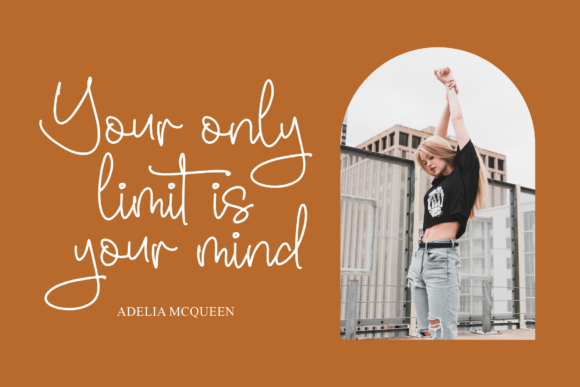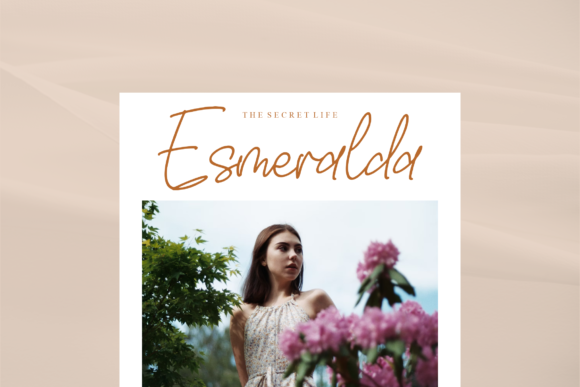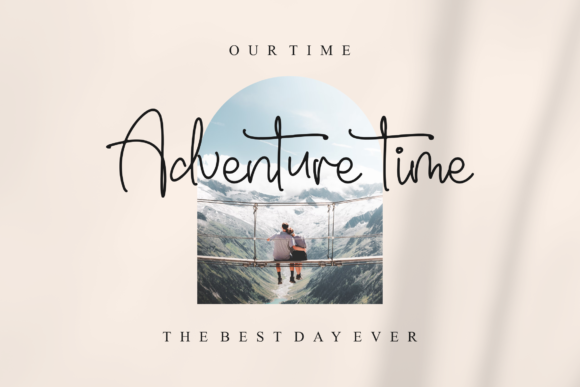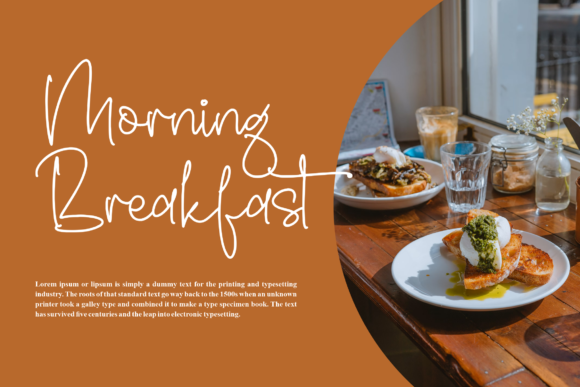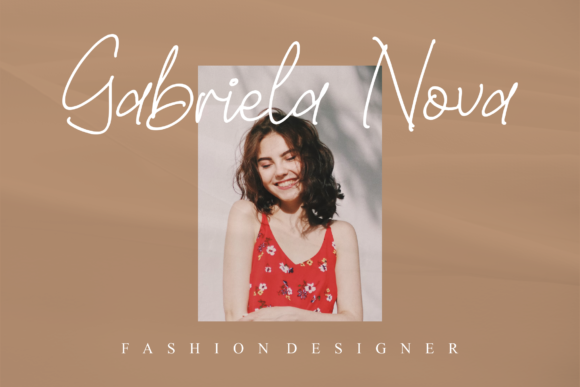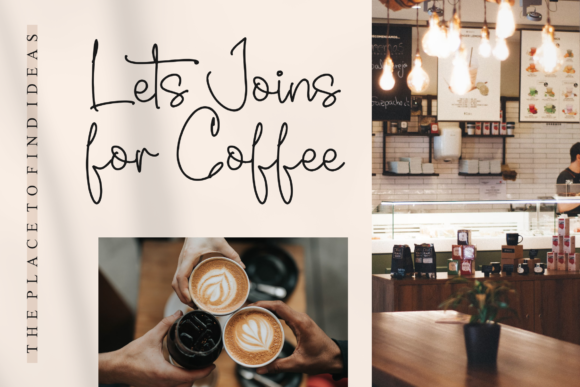
Harisstania Font: Elevate Your Designs with Elegance and Sophistication
In the world of design, typography plays a crucial role in conveying the tone and personality of a brand or product. For designers and crafters seeking to add a touch of elegance and sophistication to their work, the Harisstania font is an excellent choice. This free-flowing script font is specifically designed for packaging products, invitation cards, flyers, mockups, event posters, and any other project that demands high-quality vibes.
The Beauty of Harisstania
Harisstania boasts a beautiful and balanced character that seamlessly fits into a large design pool. Its flowing script lines and curves create a sense of movement and fluidity, making it perfect for designs that require a touch of dynamism. The font’s elegant appearance is sure to captivate your audience and leave a lasting impression.
One of the standout features of Harisstania is its PUA (Private Use Area) encoding. This means that designers can easily access all the glyphs and swashes, allowing for greater flexibility and creativity in their work. With PUA encoding, you can effortlessly navigate the font’s extensive character set and select the perfect elements to enhance your designs.
Harisstania’s versatility is another reason why it’s a favorite among designers and crafters. This font can be used for a wide range of projects, including:
- Packaging products: Add a touch of sophistication to your product labels and packaging with Harisstania’s elegant script.
- Invitation cards: Create beautiful and memorable invitations for weddings, parties, and other special events.
- Flyers: Grab attention with Harisstania’s flowing script and make your flyers stand out from the crowd.
- Mockups: Use Harisstania to add a touch of realism and elegance to your mockups.
- Event posters: Create stunning event posters that showcase your brand’s personality and style.
Why Choose Harisstania?
With so many fonts available, why choose Harisstania? Here are just a few reasons why designers and crafters love this font:
- High-quality design: Harisstania is designed with high-quality vibes in mind, ensuring that your designs look professional and polished.
- Elegant and sophisticated: This font exudes elegance and sophistication, making it perfect for designs that require a touch of luxury.
- Easy to use: With PUA encoding, accessing glyphs and swashes is a breeze, making it easy to get creative with your designs.
- Versatile: Harisstania can be used for a wide range of projects, making it a valuable addition to your font library.
Tips for Using Harisstania
To get the most out of Harisstania, here are a few tips to keep in mind:
- Experiment with different sizes: Harisstania looks great in a variety of sizes, so don’t be afraid to experiment and find the perfect size for your design.
- Play with glyphs and swashes: With PUA encoding, you can easily access glyphs and swashes to add a touch of personality to your designs.
- Pair with complementary fonts: Harisstania pairs well with a range of fonts, so try pairing it with complementary fonts to create a unique and visually appealing design.
In conclusion, Harisstania is a stunning script font that’s perfect for designers and crafters seeking to add a touch of elegance and sophistication to their work. With its beautiful and balanced character, PUA encoding, and versatility, Harisstania is an excellent choice for a wide range of projects. Whether you’re working on packaging products, invitation cards, flyers, mockups, or event posters, Harisstania is sure to elevate your designs and leave a lasting impression.